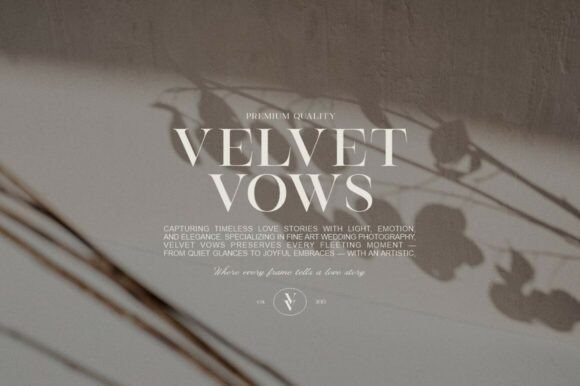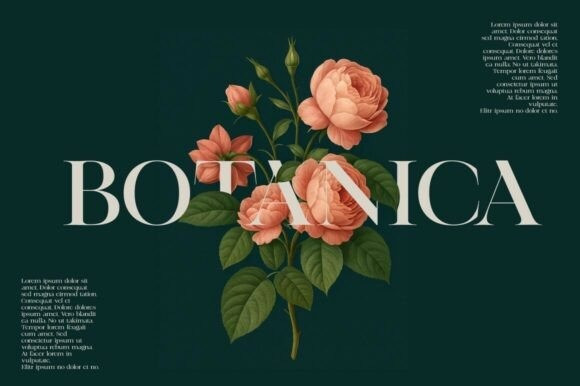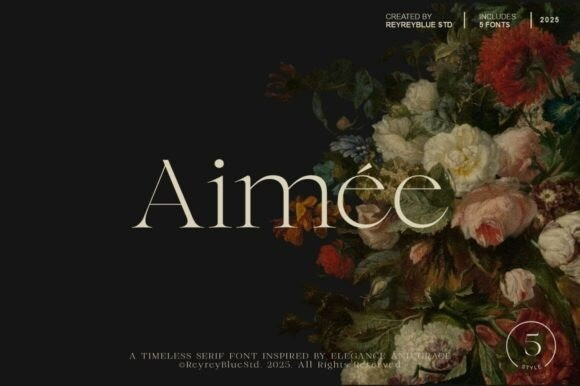
Aimée Font Family
Aimée Font Family, a refined and graceful serif typeface inspired by classic editorial beauty and timeless sophistication. This font family offers a luxurious typographic experience that seamlessly blends modern minimalism with vintage charm.
Designed to elevate your creative projects, Aimée features clean, high-contrast strokes, delicate curves, and elegant serifs that exude poise and femininity. With 5 distinct styles included, Aimée is a versatile choice for a wide range of design needs—perfect for high-end branding, magazine layouts, wedding invitations, packaging, logos, fashion editorials, and more.
Whether you’re crafting a chic logo or curating a romantic visual story, Aimée offers both readability and personality in every glyph.